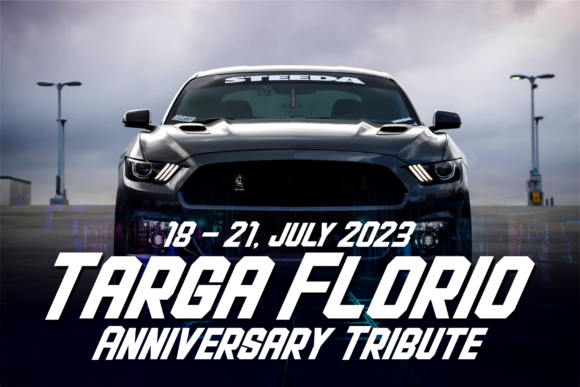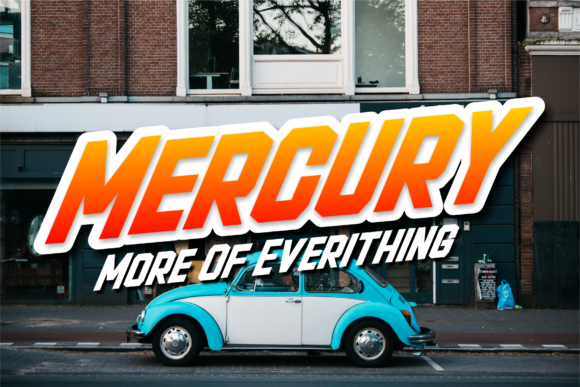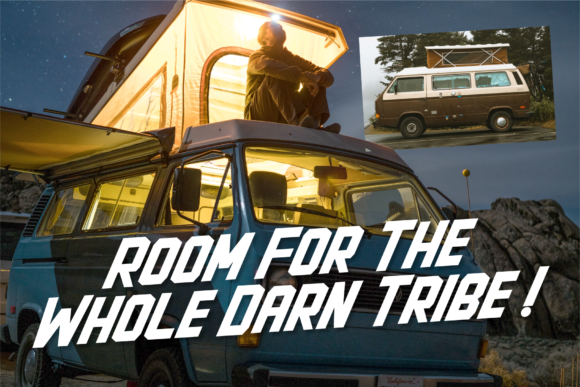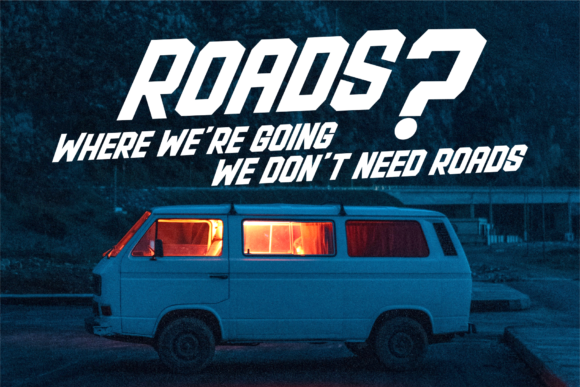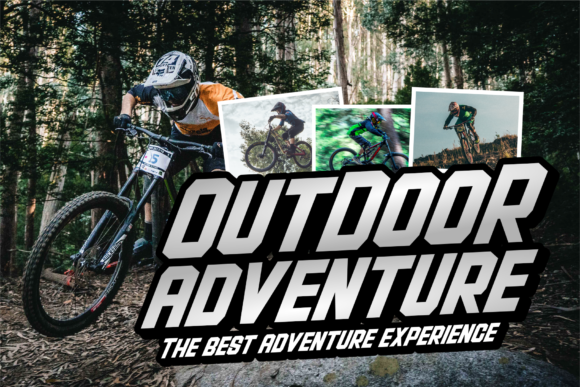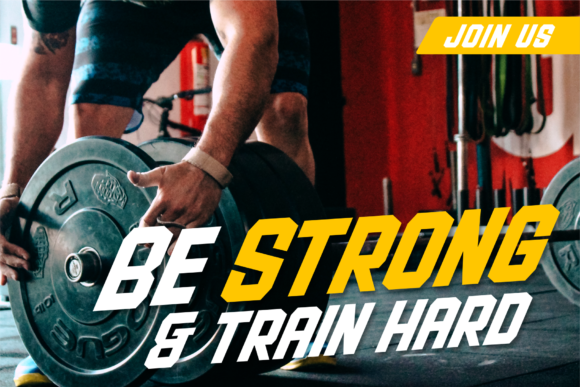
Introducing Gamecus Font: The Ultimate Futuristic Display Font
Are you tired of using the same old fonts for your designs? Look no further! Gamecus Font is here to revolutionize your typography with its bold, futuristic, and eye-catching style. This stunning display font is perfect for designers, crafters, and anyone looking to add a touch of innovation to their work.
What is Gamecus Font?
Gamecus Font is a modern, sans-serif display font that exudes a sense of futurism and sophistication. Its bold and sleek design makes it perfect for headlines, titles, and any other prominent text in your designs. The font’s unique and futuristic style will instantly grab attention and leave a lasting impression on your audience.
Key Features of Gamecus Font
- Bold and Futuristic Design: Gamecus Font boasts a bold and futuristic design that will make your text stand out from the crowd.
- Highly Versatile: This font is perfect for a wide range of design applications, including posters, flyers, prints, and digital media.
- Easy to Read: Despite its bold design, Gamecus Font is easy to read, making it perfect for headlines and titles.
- Endless Possibilities: With Gamecus Font, the possibilities are endless. Use it to create stunning posters, eye-catching flyers, or innovative digital media.
Benefits of Using Gamecus Font
- Stand Out from the Crowd: Gamecus Font will help your designs stand out from the crowd and grab attention.
- Professional and Modern Look: This font will give your designs a professional and modern look, perfect for businesses, artists, and designers.
- Increased Engagement: The bold and futuristic design of Gamecus Font will increase engagement and leave a lasting impression on your audience.
Design Ideas Using Gamecus Font
Gamecus Font is incredibly versatile and can be used in a wide range of design applications. Here are some design ideas to get you started:
- Posters and Flyers: Use Gamecus Font to create stunning posters and flyers that grab attention.
- Logos and Branding: This font is perfect for logos and branding, giving your business a modern and professional look.
- Digital Media: Use Gamecus Font to create innovative digital media, such as social media graphics, website headers, and more.
- Print Materials: This font is perfect for print materials, such as brochures, business cards, and letterheads.
In conclusion, Gamecus Font is a game-changing display font that will take your designs to the next level. Its bold, futuristic, and eye-catching style makes it perfect for designers, crafters, and anyone looking to add a touch of innovation to their work. With its endless possibilities and versatility, Gamecus Font is a must-have for any designer or crafter looking to create stunning and captivating designs.